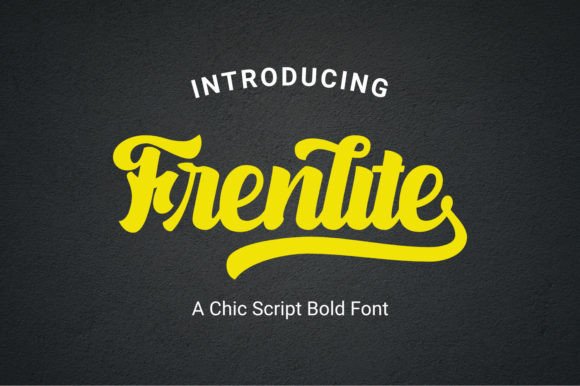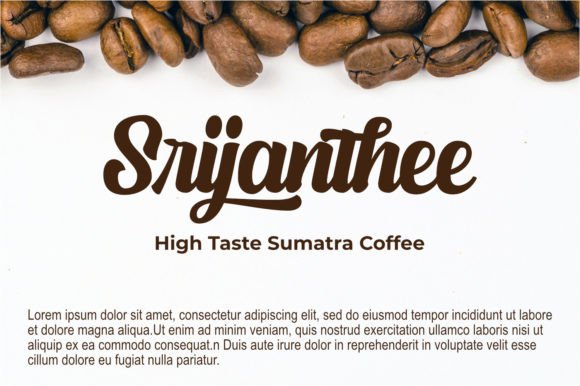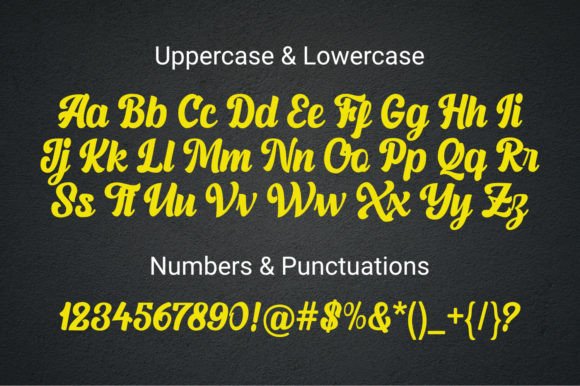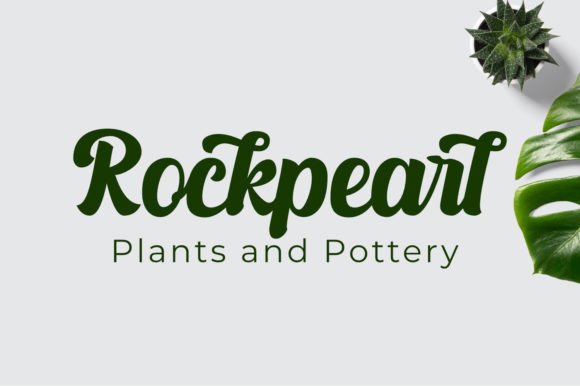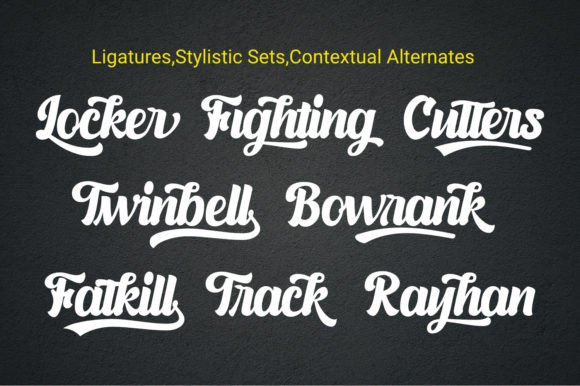
Frenlite Font
About Frenlite Font
Frenlite Font is a bold script typeface designed to bring a trendy and dynamic look to your creative projects. Its thick, flowing strokes make it an excellent choice for crafting, banners, apparel designs, signage, logos, and other projects that demand a stylish and impactful font. Frenlite combines boldness with modern flair, helping your designs stand out.
Trendy and Bold Script Design
Frenlite features strong, smooth letterforms that balance readability with contemporary style. Its bold presence gives your work a confident and eye-catching look, perfect for projects that need to grab attention.
Ideal Uses for Frenlite Font
This versatile font is ideal for:
• Crafting and DIY projects
• Banners and signage
• Apparel and merchandise designs
• Logos and branding
• Social media graphics and promotional materials
Frenlite adds a trendy and bold touch to diverse creative works.
Why Choose Frenlite Font?
Designers appreciate Frenlite for its:
• Bold and trendy script style
• Clear, thick, and flowing letterforms
These features make Frenlite a practical and striking font choice.
Add Boldness and Style to Your Designs
Typography influences the impact of your project. Frenlite adds boldness and a trendy personality that helps your designs command attention. Whether for branding, crafting, or advertising, this font elevates your creative expression.
In summary, Frenlite Font is a bold and trendy script perfect for designers seeking a strong and stylish font. Add Frenlite to your font library to create standout and memorable designs.